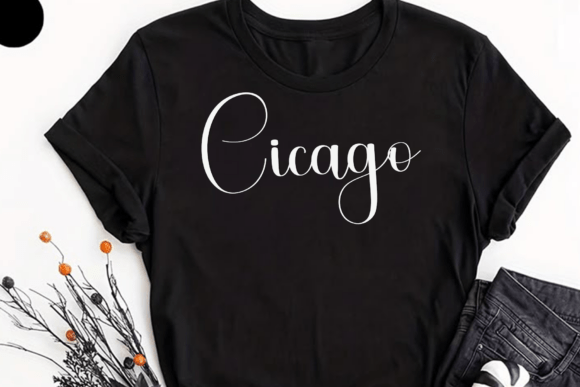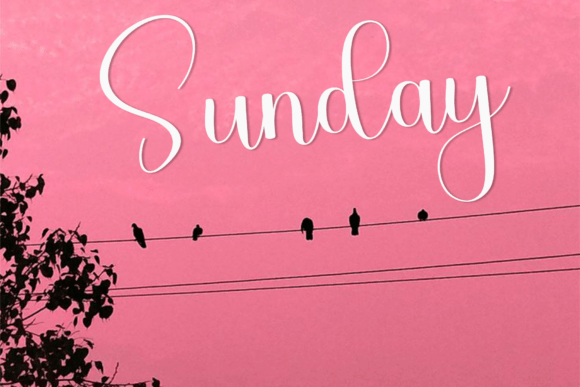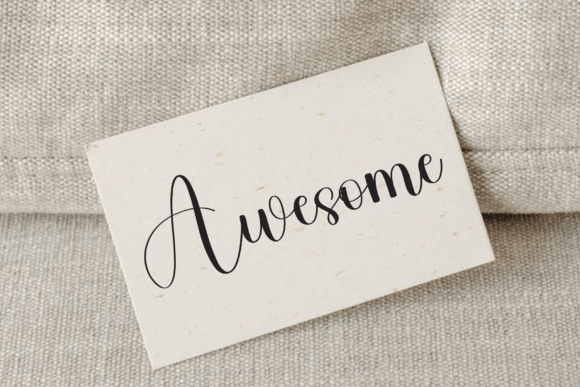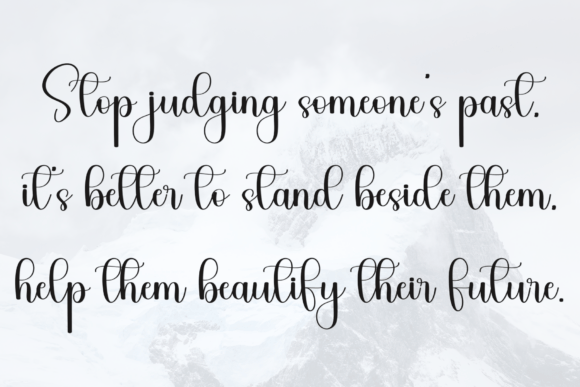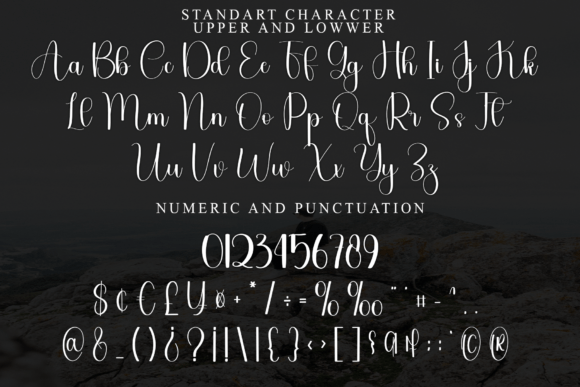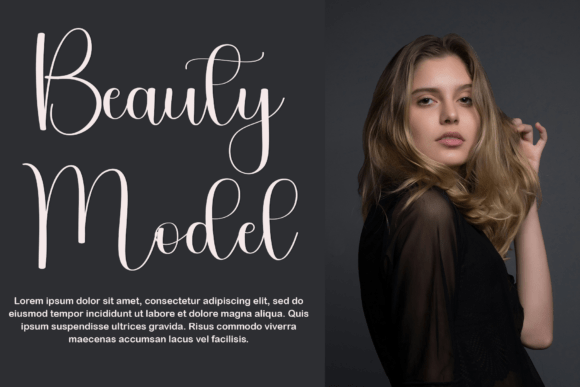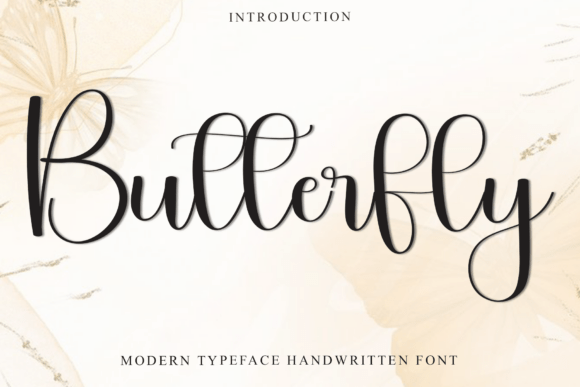
Introducing Butterfly Font: The Festive and Merry Typeface for Holiday Designs
Are you looking for a font that captures the essence of the holiday season? Do you want to add a touch of magic to your designs, greeting cards, and gift tags? Look no further than Butterfly Font, a whimsical and decorative typeface that’s perfect for bringing cheer and nostalgia to your projects.
The Spirit of the Holiday Season in a Font
Butterfly Font is a festive and merry typeface that’s specifically designed to evoke the spirit of the holiday season. Its decorative elements and whimsical flair make it an ideal choice for designers and crafters who want to add a touch of enchantment to their work. Whether you’re creating holiday-themed projects, greeting cards, or gift tags, this font is sure to bring a smile to your audience’s faces.
Butterfly Font is a versatile typeface that’s perfect for a wide range of design applications. Whether you’re a professional designer or a crafter, this font is easy to use and can be incorporated into your projects with ease. The font is PUA encoded, which means you can access all of the amazing glyphs and ligatures with ease, making it simple to create beautiful and intricate designs.
Key Features of Butterfly Font
- Festive and Merry Design: Butterfly Font is specifically designed to capture the spirit of the holiday season, making it perfect for holiday-themed projects.
- Decorative Elements: The font features decorative elements and whimsical flair, adding a touch of enchantment to your designs.
- PUA Encoded: The font is PUA encoded, making it easy to access all of the amazing glyphs and ligatures.
- Perfect for Greeting Cards and Gift Tags: Butterfly Font is ideal for creating beautiful and festive greeting cards and gift tags.
Butterfly Font is a beautiful and festive typeface that’s perfect for designers and crafters who want to add a touch of magic to their holiday designs. With its decorative elements and whimsical flair, this font is sure to bring cheer and nostalgia to your projects. Whether you’re creating greeting cards, gift tags, or holiday-themed projects, Butterfly Font is the perfect choice. So why wait? Download Butterfly Font today and let your typography shine with the magic of this beautiful font!